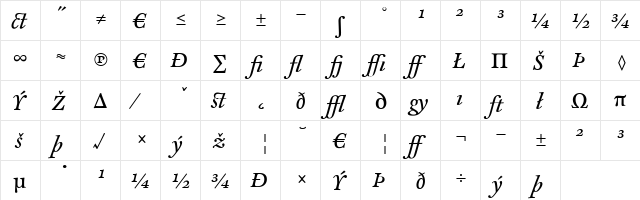
CliffordNine Italic
Design Context for CliffordNine Typeface
CliffordNine is a composed and adaptable typeface that performs quietly and consistently across a wide range of design contexts. The dynamic lean of this cut emphasises speed and emphasis in any layout.
Pro Tip: Use CliffordNine for emphasis, pull quotes, and subheadings where its slanted energy can add rhythm to the layout.